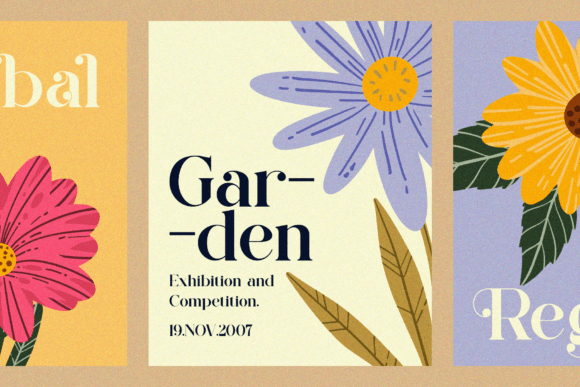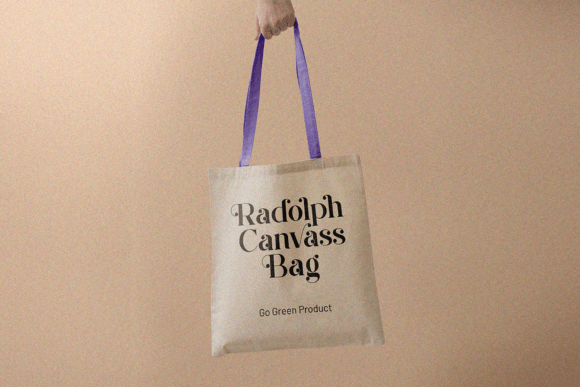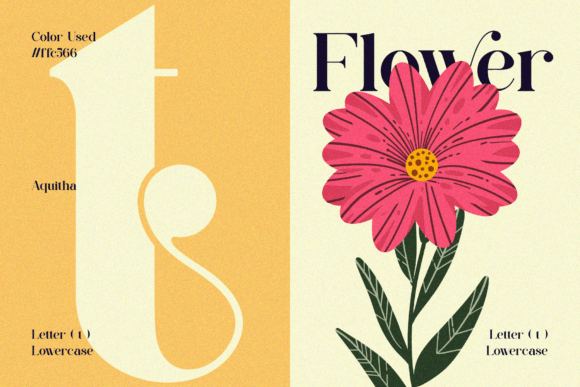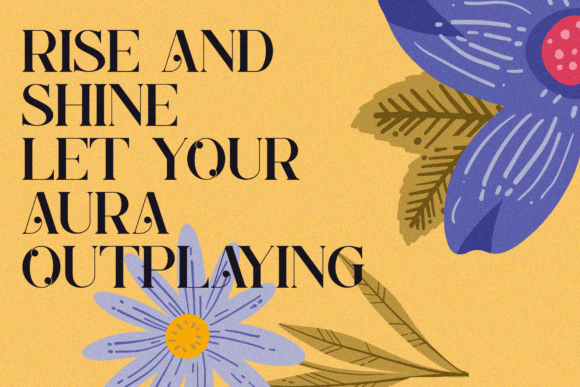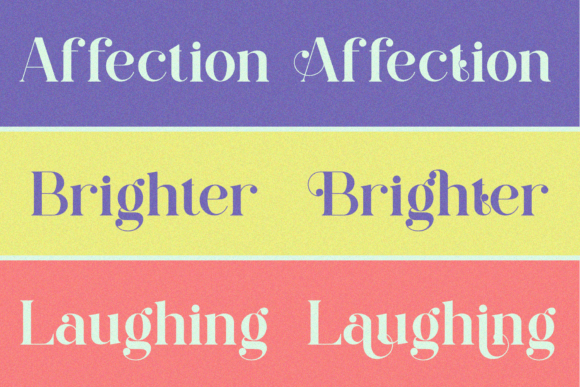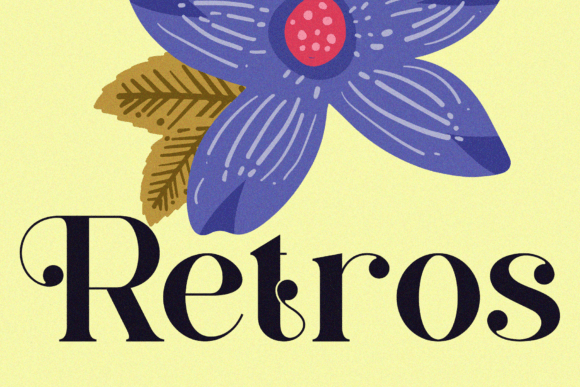
Unlocking Elegance with the Perfect Font: Aquitha Font
Imagine you’re a graphic designer, tasked with creating the perfect logo for a luxury brand. You’ve got a blank slate, a blank page, and a whole lot of creativity. The moment you start brainstorming, you know you need a font that exudes sophistication and style. That’s when you stumble upon the perfect partner – a modern serif font that sets your design apart from the rest.
Aquitha Font is a masterclass in elegance, with its beautiful character and smooth lines making it a perfect fit for any high-end design project. Whether you’re designing invitation cards, movie titles, or business cards, this font is sure to impress. Its stylish alterations and ligatures make it a valuable tool for designers looking to elevate their work to the next level.
With Aquitha Font, the possibilities are endless. Its versatility and sophistication make it a must-have for any designer looking to create truly memorable designs.
Aquitha Font Review
I recently had the chance to work with the Aquitha font, and I have to say it’s a mixed bag. ✨ Here are some things that worked well for me:
- Unique Character**: The Aquitha font has a distinct, hand-drawn feel that sets it apart from other fonts. It’s perfect for designers looking for something that adds a touch of personality to their projects.
- High Legibility**: Despite its unique character, the font is surprisingly easy to read, even at smaller sizes. This makes it a great choice for body text or headings.
However, there are also some limitations to consider: ⚠️
- Limited Character Set**: The Aquitha font has a relatively limited character set, which can make it difficult to use for more complex projects.
- Not Ideal for Large Text**: While the font is legible at smaller sizes, it can become difficult to read at larger sizes. This may be a issue for designers working on projects that require large headings.
Overall, I think the Aquitha font is a great choice for designers who want to add a touch of personality to their projects, but it may not be the best choice for more complex or large-scale projects. With a little creativity and careful selection of font sizes, it can be a great addition to any design project.
Tips for Getting the Most Out of Aquitha Font
Aquitha Font is best used for headings and titles due to its elegant and sophisticated design. Use it sparingly to add a touch of luxury to your designs. Experiment with different font sizes and styles to achieve the desired effect.
Aquitha Font is commonly used for:
- Business branding and marketing materials
- High-end product packaging and labels
Alternatives to Aquitha Font for Designers
Aquitha Font is a popular font used in various design projects, but sometimes it’s good to explore other options. Here are a few alternatives that you might find useful:
Montserrat is a sans-serif font designed for urban environments. It’s a modern, geometric font that works well for headings and body text. Montserrat is a great alternative to Aquitha Font when you need a clean, minimalist look.
Comparison to Aquitha Font: Montserrat has a more geometric feel and is more versatile in terms of size and weight, making it a great choice for digital design projects.
Lato is a sans-serif font designed for digital use. It’s a clean, modern font that works well for body text and headings. Lato is a great alternative to Aquitha Font when you need a font that’s easy to read and has a neutral feel.
Comparison to Aquitha Font: Lato is more rounded and has a softer feel than Aquitha Font, making it a great choice for projects where you want a friendly, approachable tone.
Open Sans is a sans-serif font designed for digital use. It’s a clean, modern font that works well for body text and headings. Open Sans is a great alternative to Aquitha Font when you need a font that’s highly legible and has a neutral feel.
Comparison to Aquitha Font: Open Sans has a more neutral feel and is highly legible, making it a great choice for projects where you need a font that’s easy to read and doesn’t compete with the content.